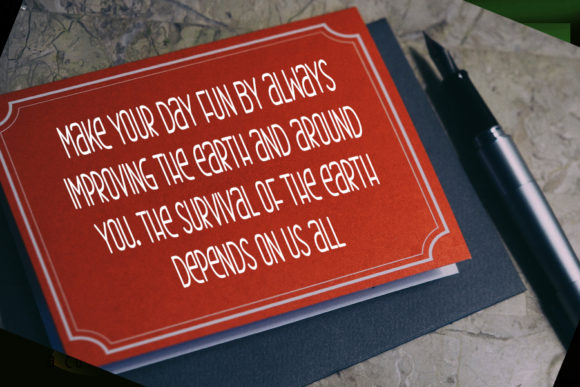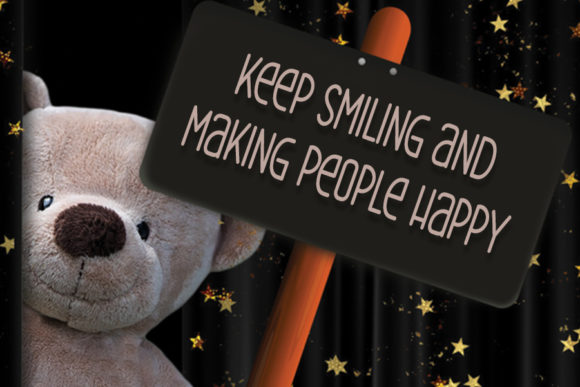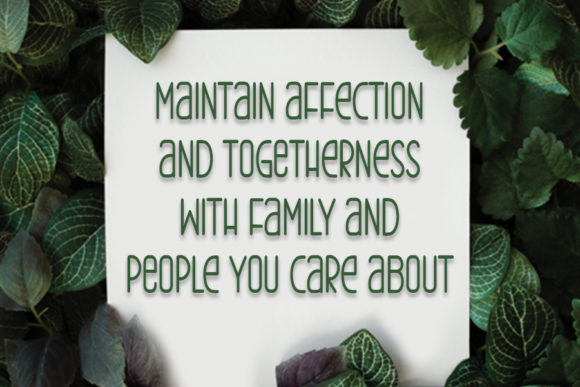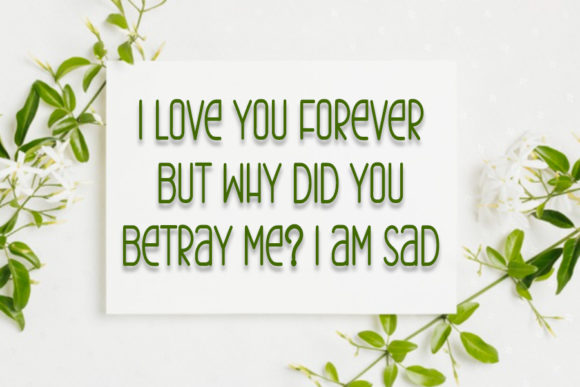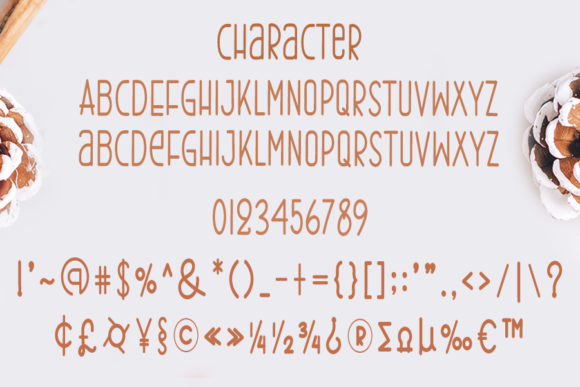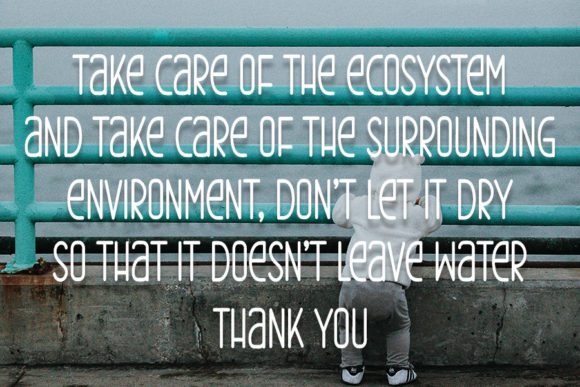
Introducing Green House Font: The Perfect Addition to Your Design Projects
Are you a designer or crafter looking for a unique and versatile font to elevate your creative projects? Look no further than Green House Font, a minimal and geometric sans serif font that is sure to make your designs stand out. In this article, we’ll take a closer look at the features and benefits of Green House Font, and explore how it can be used to add a touch of modern style to your work.
What is Green House Font?
Green House Font is a sleek and modern sans serif font that is characterized by its clean lines, simple shapes, and geometric curves. Its minimalist design makes it incredibly versatile, allowing it to be paired with a wide range of design styles and themes. Whether you’re working on a logo, brochure, website, or social media graphics, Green House Font is the perfect choice for adding a touch of sophistication and elegance to your designs.
Key Features of Green House Font
- Minimal and geometric design: Green House Font features a clean and simple design that is perfect for modern designs.
- Sans serif: The font’s sans serif design makes it easy to read and perfect for digital and print applications.
- Highly versatile: Green House Font can be used for a wide range of design projects, from logos and branding to websites and social media graphics.
- Easily customizable: The font is highly customizable, allowing you to adjust the size, color, and style to suit your design needs.
Benefits of Using Green House Font
So why choose Green House Font for your design projects? Here are just a few benefits of using this amazing font:
- Adds a touch of modern style: Green House Font’s sleek and modern design adds a touch of sophistication and elegance to any design project.
- Improves readability: The font’s clear and simple design makes it easy to read, even at small sizes.
- Increases versatility: Green House Font can be used for a wide range of design projects, making it a great addition to any designer’s toolkit.
- Enhances creativity: The font’s unique and stylish design inspires creativity and can help you to think outside the box.
How to Use Green House Font in Your Design Projects
Green House Font is incredibly easy to use and can be incorporated into your design projects in a variety of ways. Here are a few ideas to get you started:
- Logos and branding: Use Green House Font to create a modern and stylish logo that reflects your brand’s personality.
- Websites and blogs: Add Green House Font to your website or blog to give it a fresh and modern look.
- Social media graphics: Use Green House Font to create eye-catching social media graphics that grab attention.
- Print materials: Green House Font is perfect for print materials such as brochures, flyers, and business cards.
In conclusion, Green House Font is a versatile and stylish font that is perfect for designers and crafters looking to add a touch of modern style to their design projects. Its clean and simple design makes it easy to read and highly versatile, allowing it to be paired with a wide range of design styles and themes. Whether you’re working on a logo, website, or social media graphics, Green House Font is the perfect choice for elevating your designs and making them stand out.